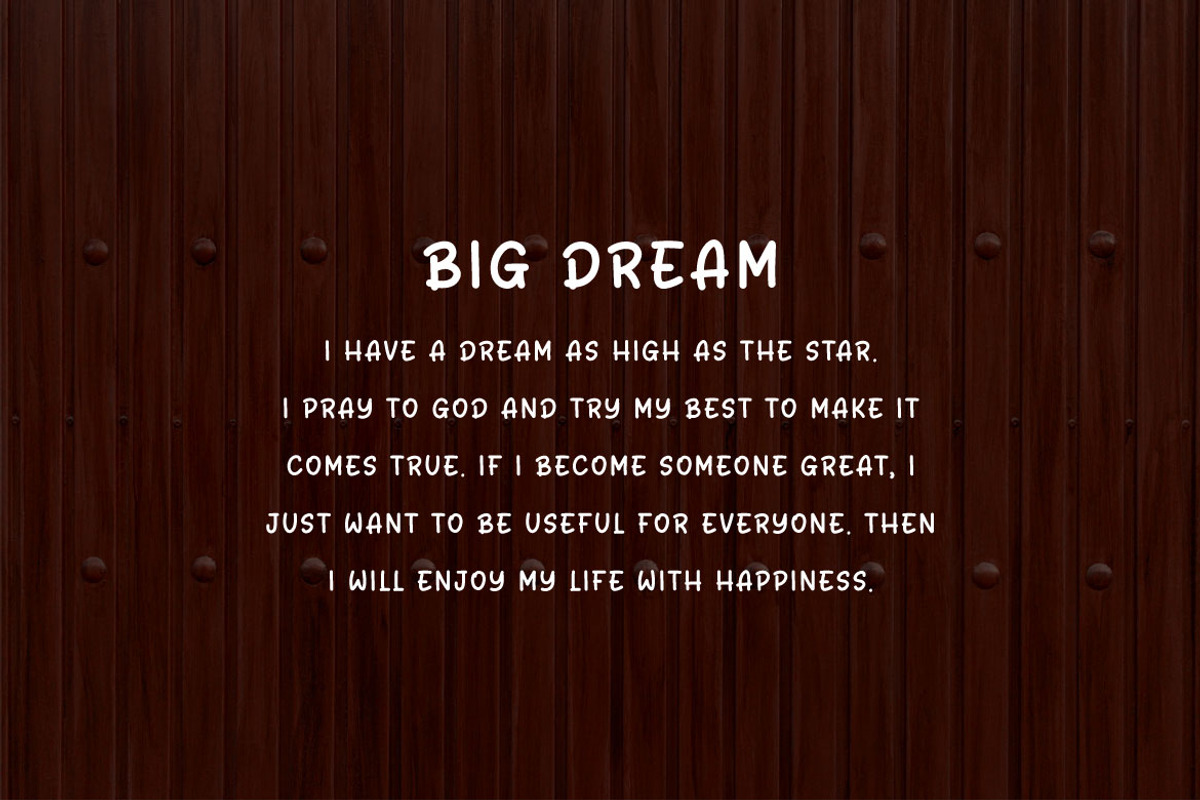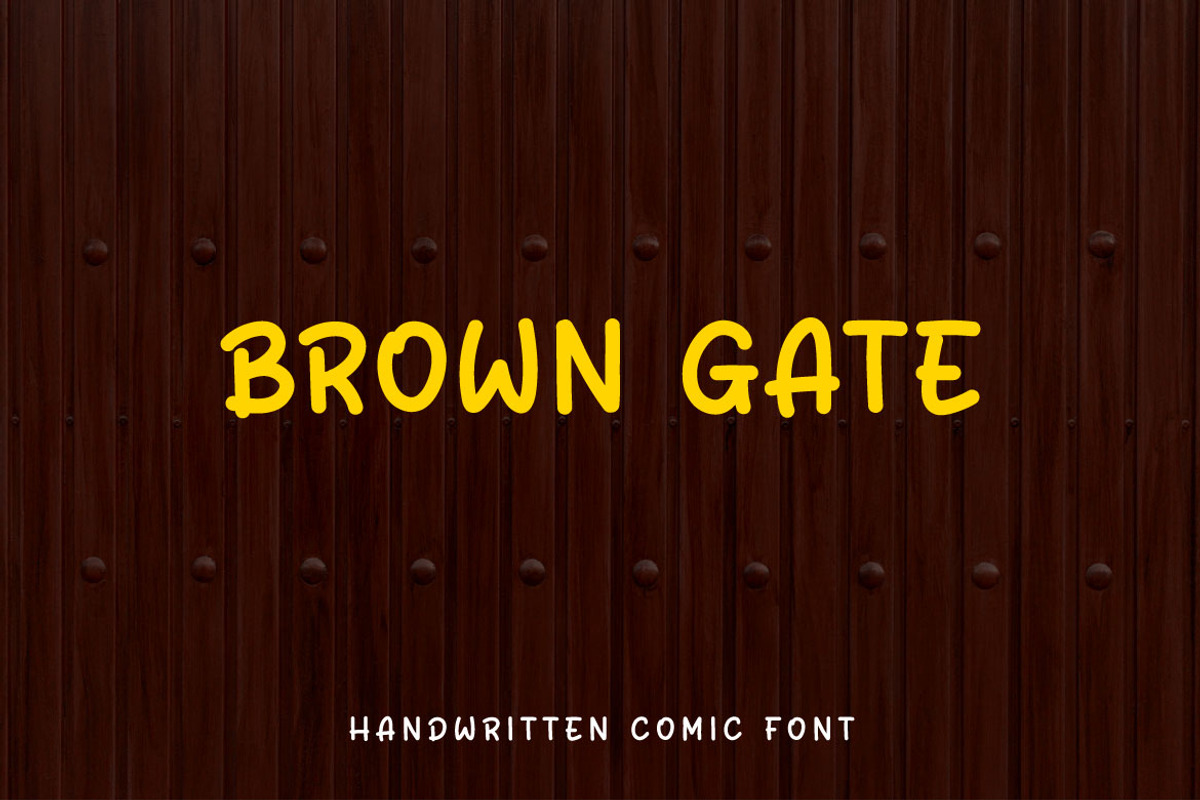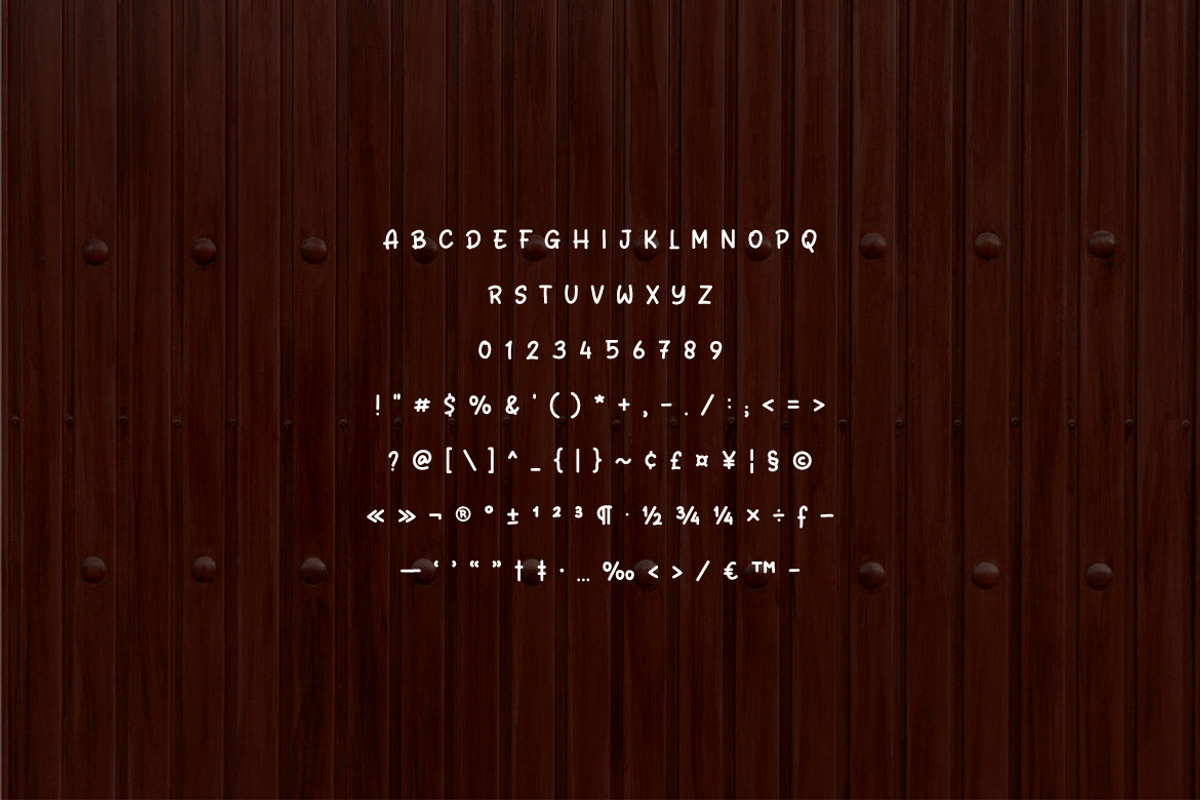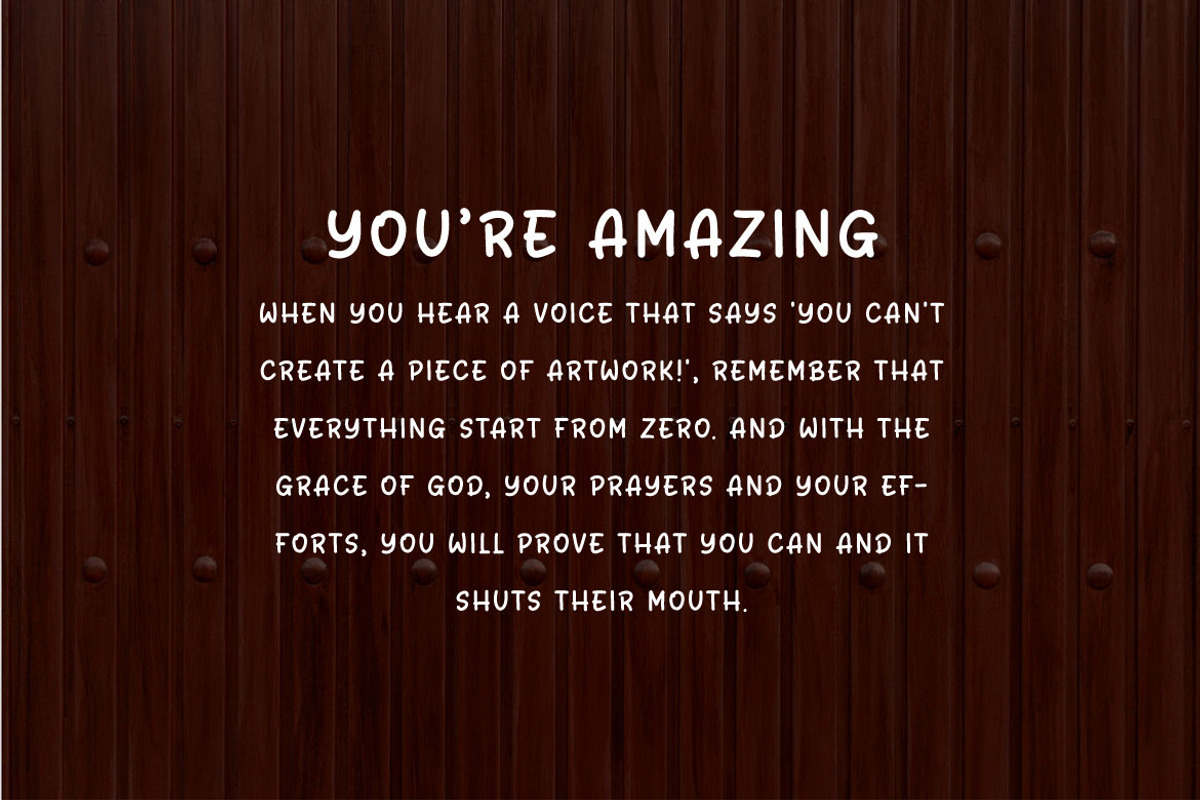
Brown Gate - Sans Serif Font
Introducing Brown Gate, a handwritten comic font that brings the charm of pen-to-paper creation to your digital designs. This playful typeface captures the essence of hand-drawn comic strips, injecting a sense of personality and warmth into your words.
Whether you're designing a witty speech bubble for a quirky character or adding a touch of humor to a poster, Brown Gate ensures that your text becomes an integral part of the visual storytelling experience.
Let your words take center stage with this delightful handwritten comic font, where every letter is a brushstroke in the masterpiece of your creative vision.